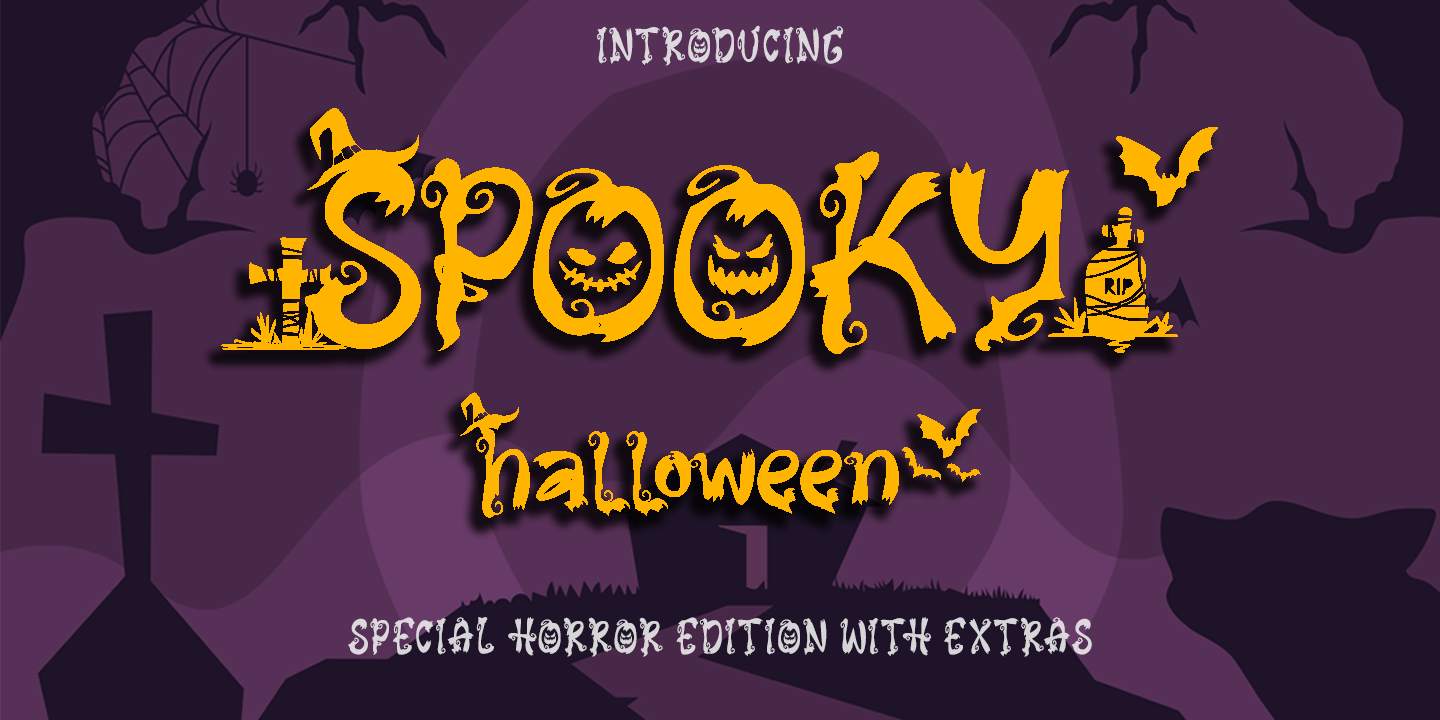
The Spooky Halloween Font is perfect for various design applications including Halloween party invitations, haunted house promotions, trick-or-treat bag designs, costume store branding, pumpkin patch marketing, ghost tour advertising, spooky event signage, and October festival graphics. This frightfully fun typeface works exceptionally well for seasonal businesses and projects requiring playful scary atmosphere with Halloween charm.
What makes Spooky Halloween Font exciting is its frightfully delightful character that instantly creates the perfect balance of spooky thrills and Halloween fun for all ages. The font features eerie letterforms with ghostly curves and haunting aesthetics that evoke feelings of excitement, mystery, and seasonal celebration. Its spooky styling and Halloween-inspired appearance make it perfect for brands that want to capture the magical spirit of October and connect with audiences who love the thrilling fun of Halloween traditions.
The Spooky Halloween Font family includes multiple weights and styles, offering designers flexibility for diverse Halloween applications. The family typically consists of regular, bold, ghostly, and decorative variations, along with pumpkin-inspired elements and spooky ornaments, providing comprehensive coverage for projects that need both frightful fun and visual impact across different Halloween contexts.
Whether you're working on Halloween entertainment, seasonal retail marketing, or October celebration campaigns, Spooky Halloween Font Free Download delivers the spine-tingling quality and visual excitement that modern Halloween designers seek. The font's spooky design combined with its excellent readability makes it an essential tool for creating compelling visual communications that celebrate Halloween magic and bring the thrilling spirit of October's most enchanting holiday to life.